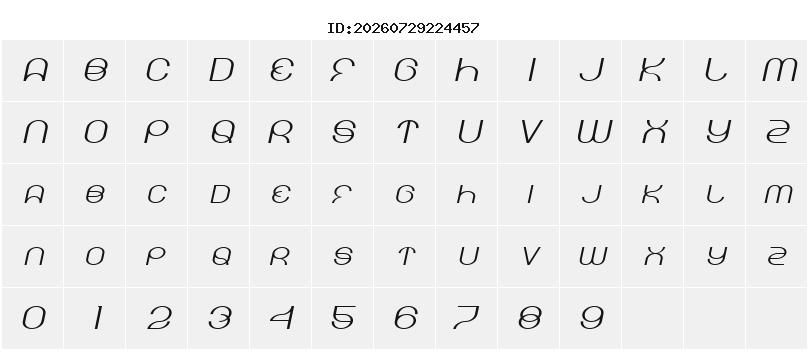
Kicking Limos Preview
• Font Name: Kicking Limos
• Full Font Name: Kicking Limos
About Kicking Limos.ttf
Kicking Limos.ttf is a modern, elegant sans-serif font designed for ultimate readability and visual harmony. Perfect for branding, headlines, web design, and print materials.